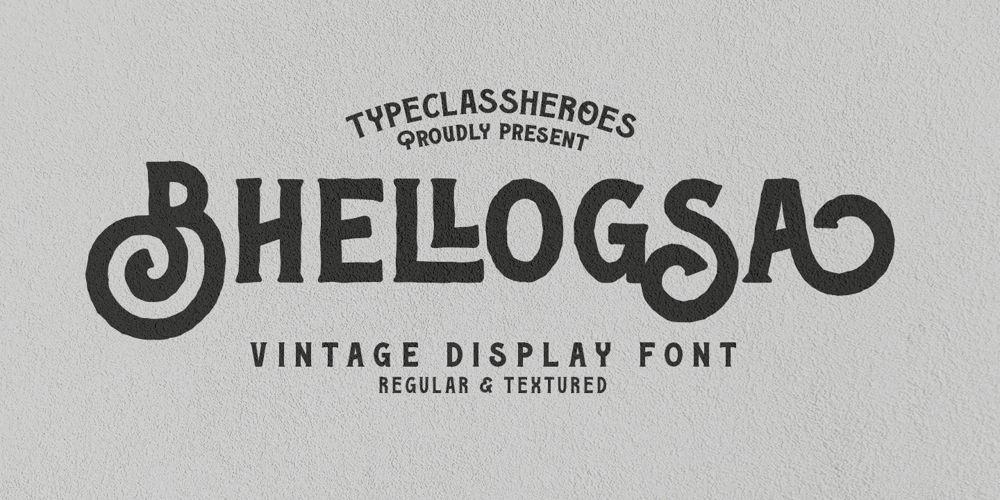
Bhellogsa Font Family was designed by Suandana ipandemade and published by TypeClassHeroes. Bhellogsa contains 2 styles and family package options. Bellosa is a vintage display font. It easily cooperates together and is perfect for creating the traditional style great for quotes and easily make a logotype or badge for your logo with this font. Come with special features regular and textured with a lot of alternative and ligature style.